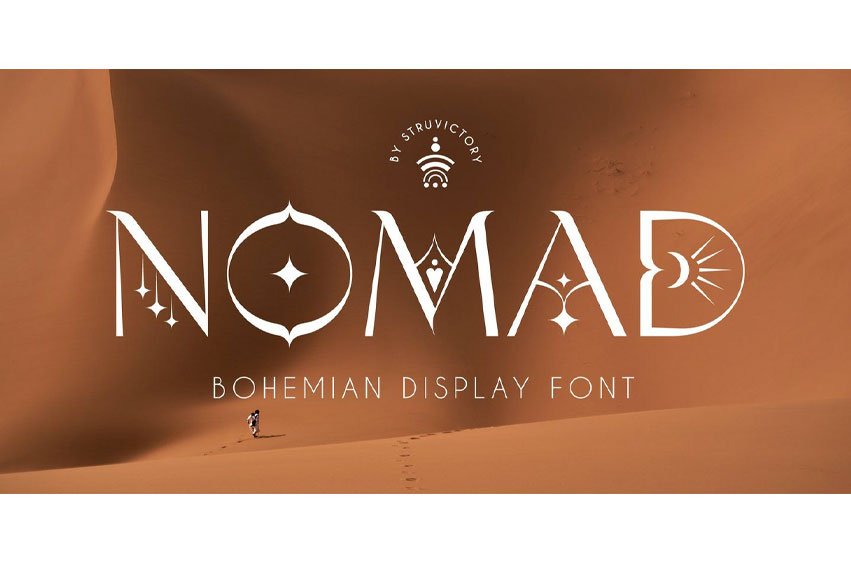
Nomad Decorative Font is a modern display capital font with bohemian motives. The font is created in classic proportions and decorated with celestial and boho decor. NOMAD uppercase is decorated with bohemian patterns. The font is suitable for the design on the theme of astrology, mysticism, spirituality, witchcraft, magic, esotericism.